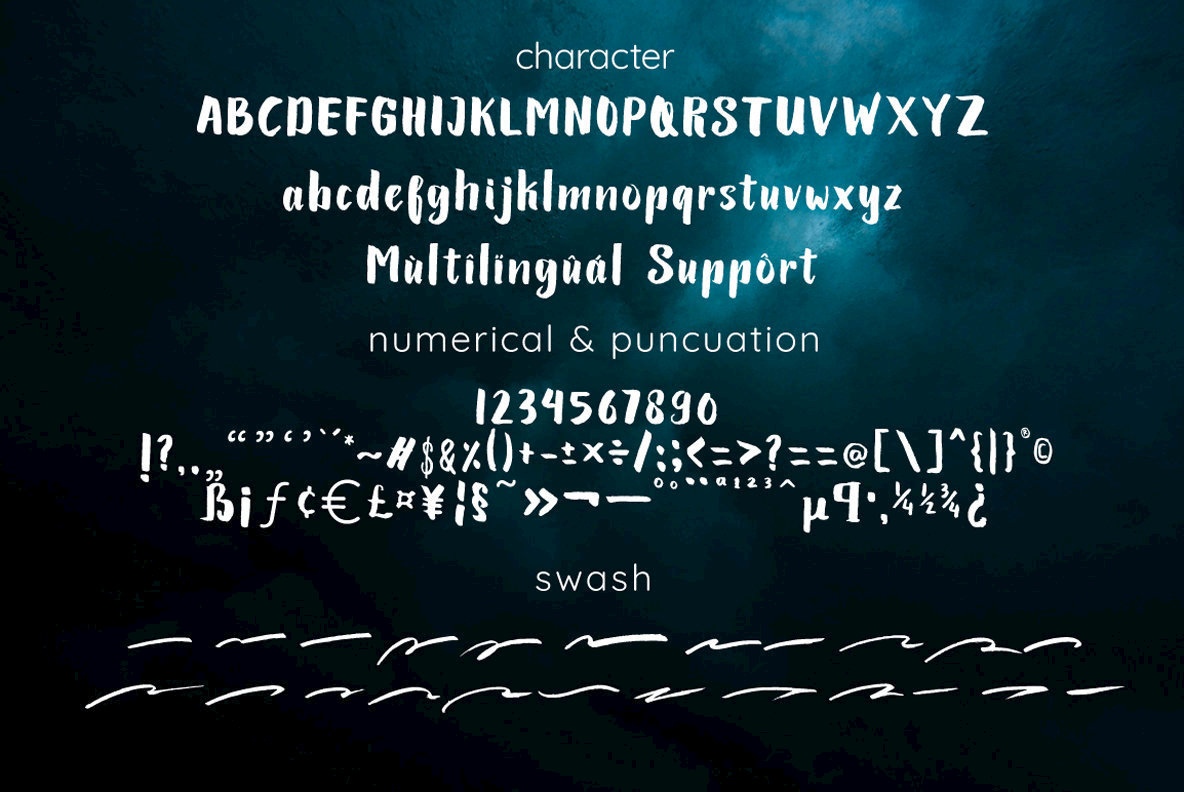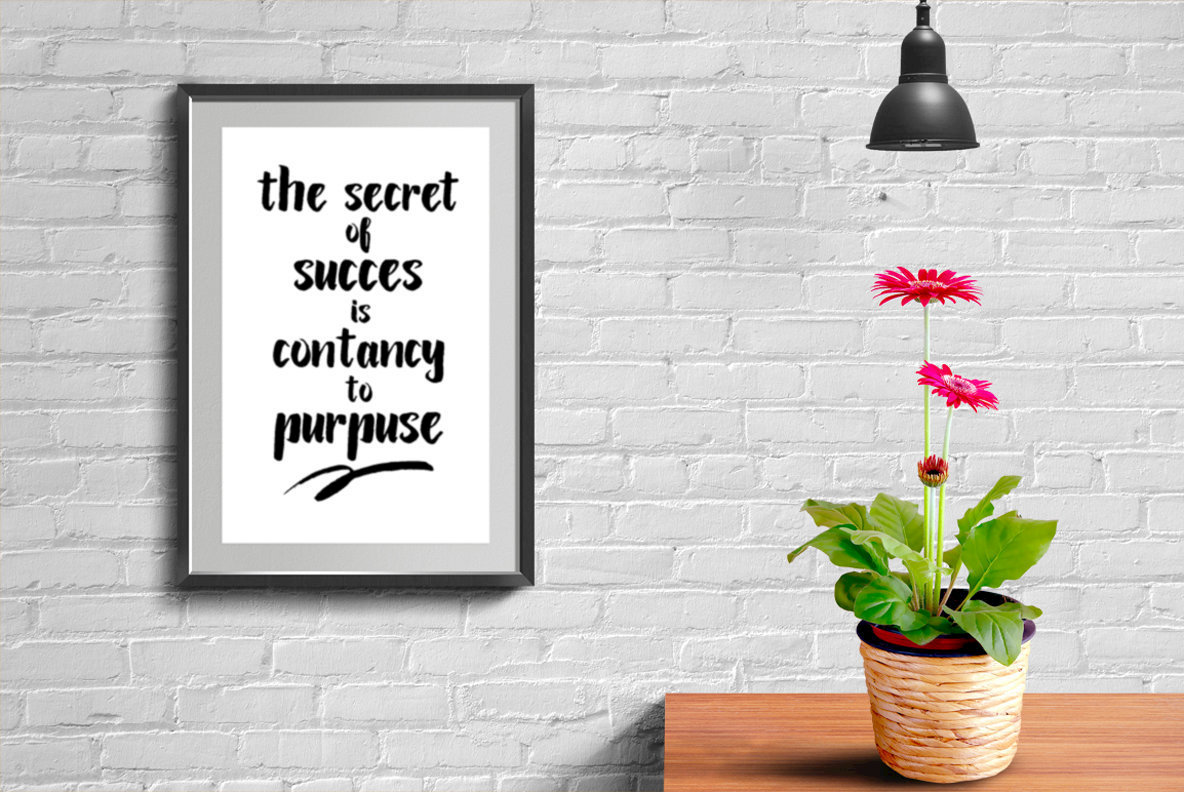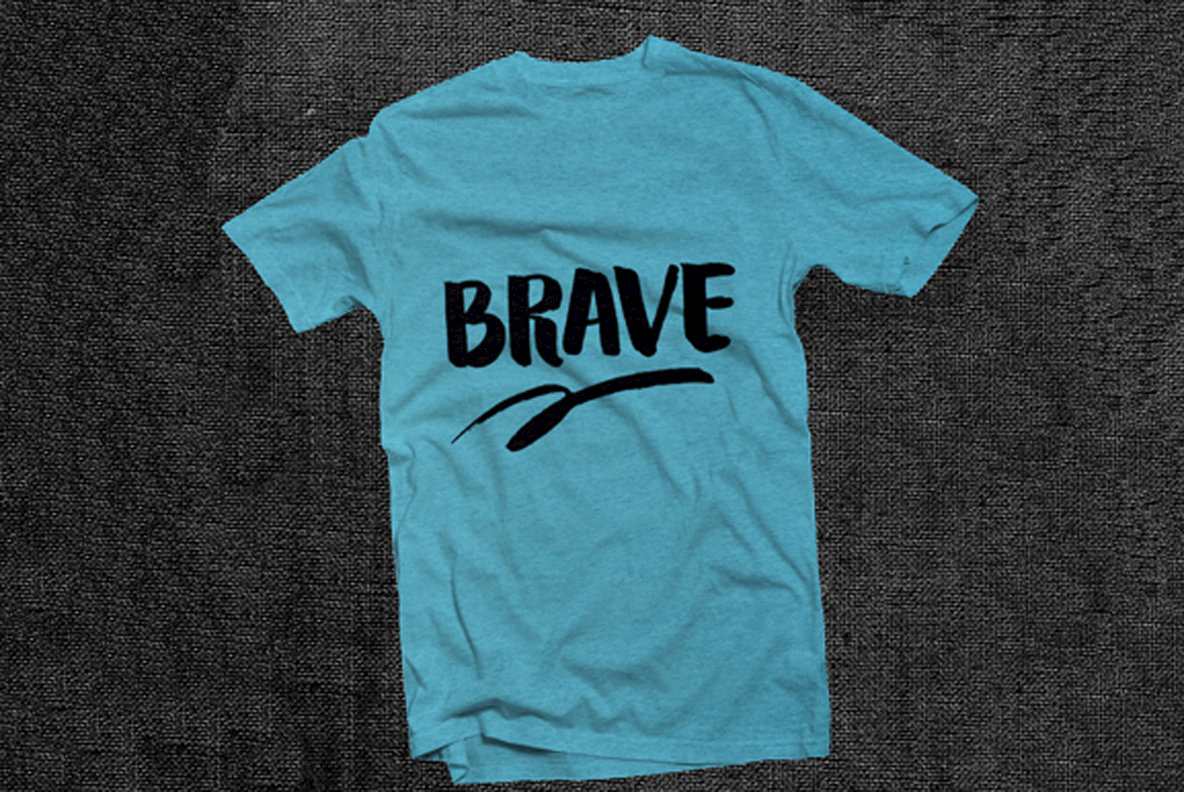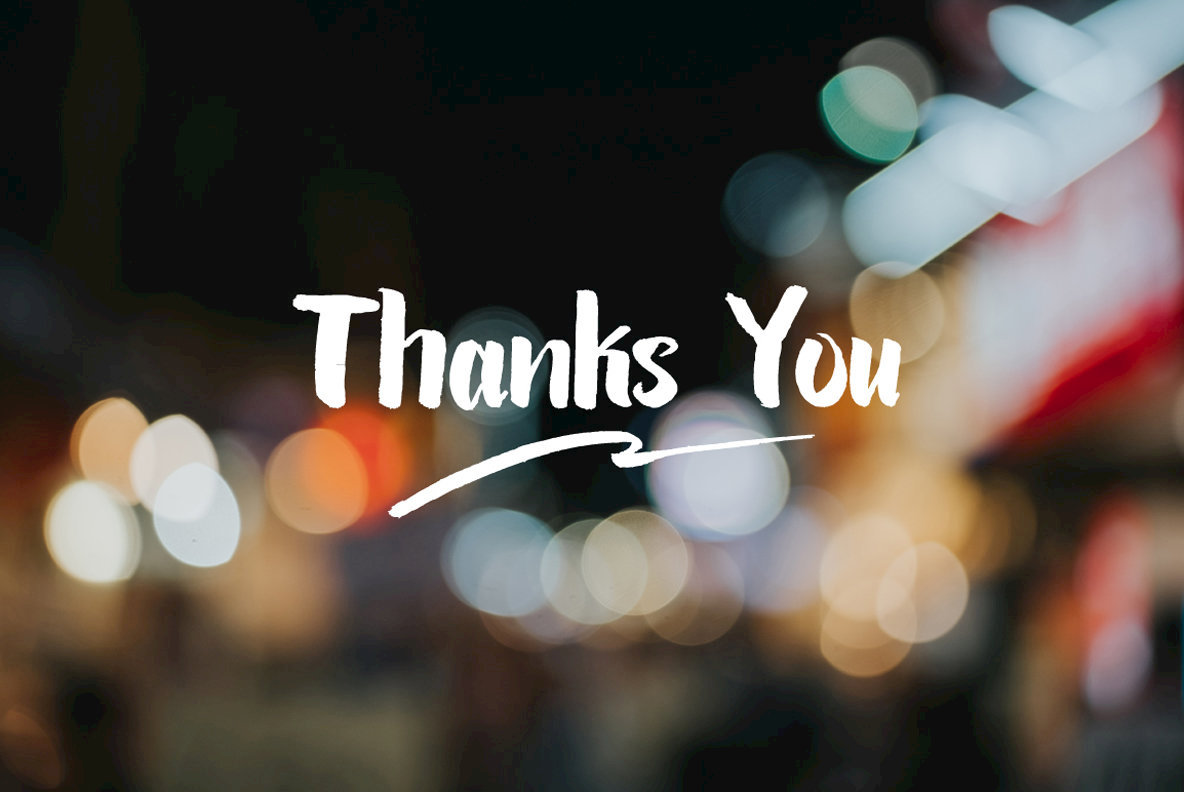
Lariess Brush Font
Embrace the art of hand-drawn typography with Lariess, a versatile brush font offering a contemporary aesthetic. Created through a meticulous process of painting on paper, this typeface is crafted to infuse your designs with a stylish and organic charm.Lariess Brush: Handcrafted Typography